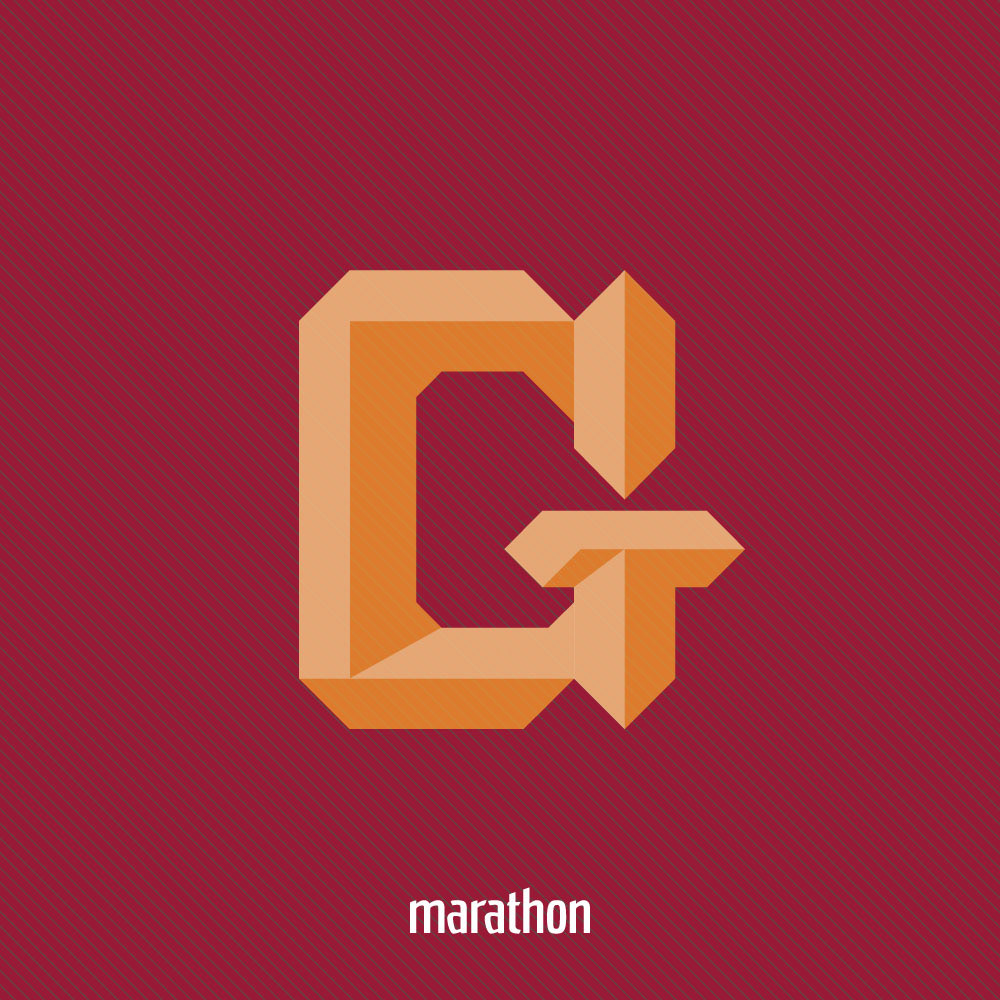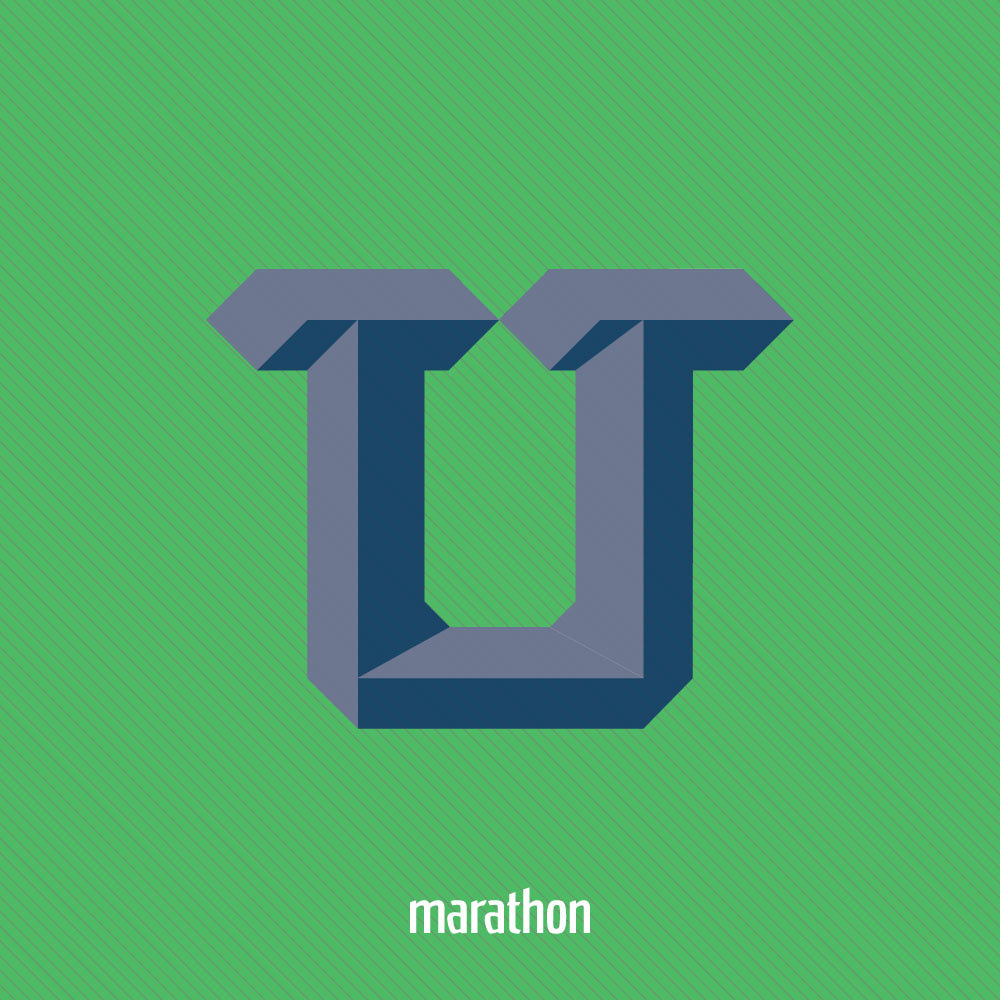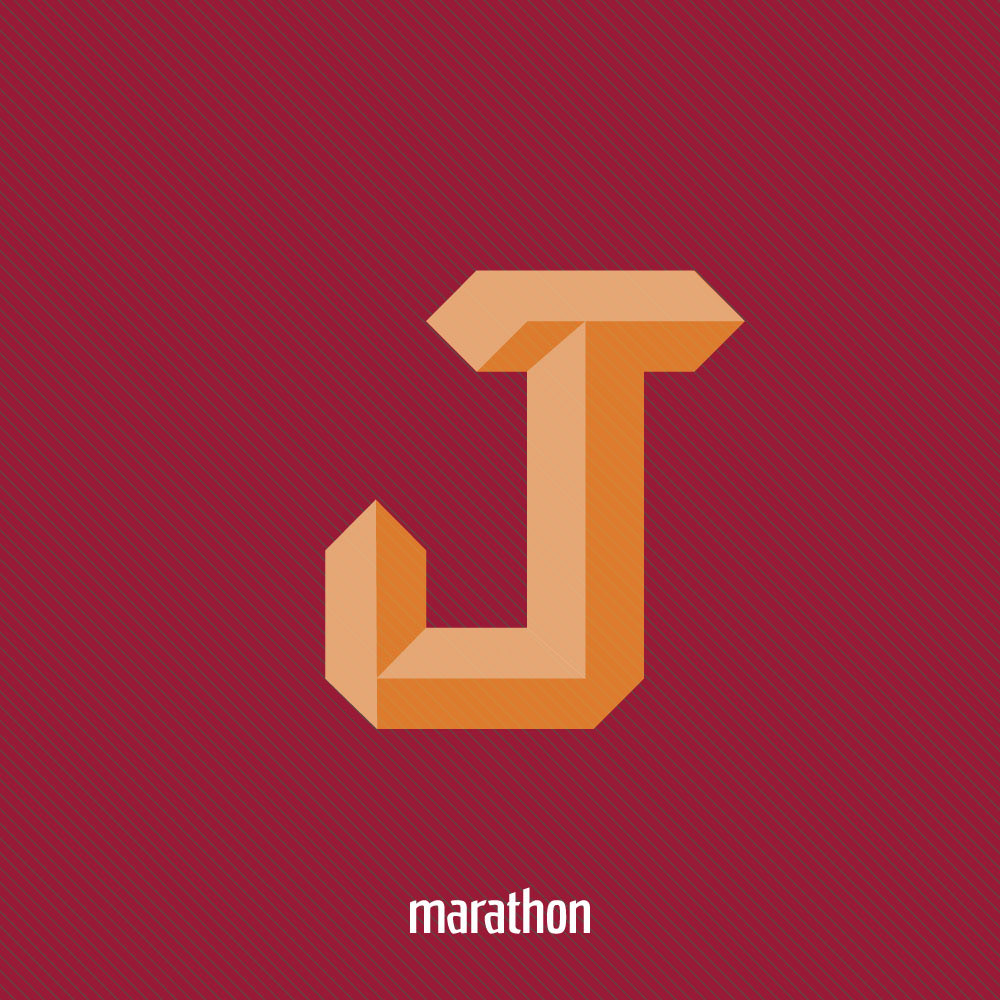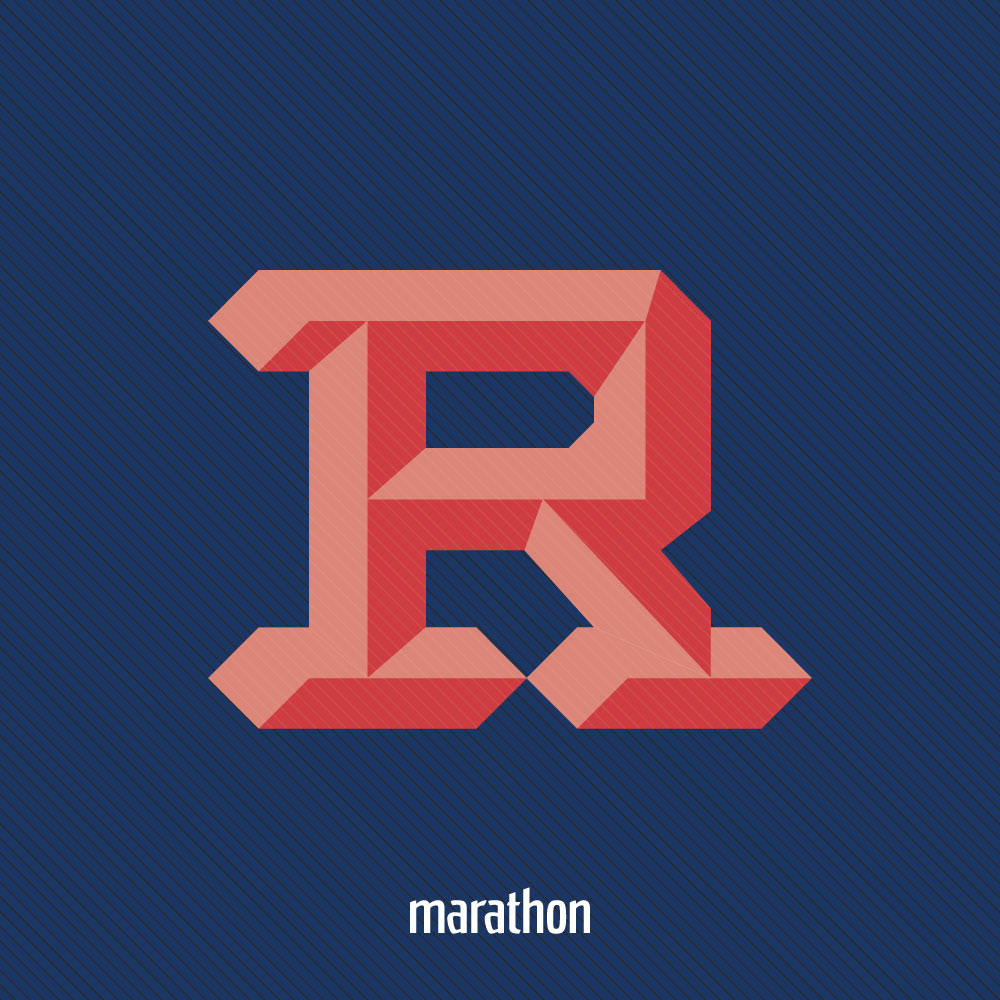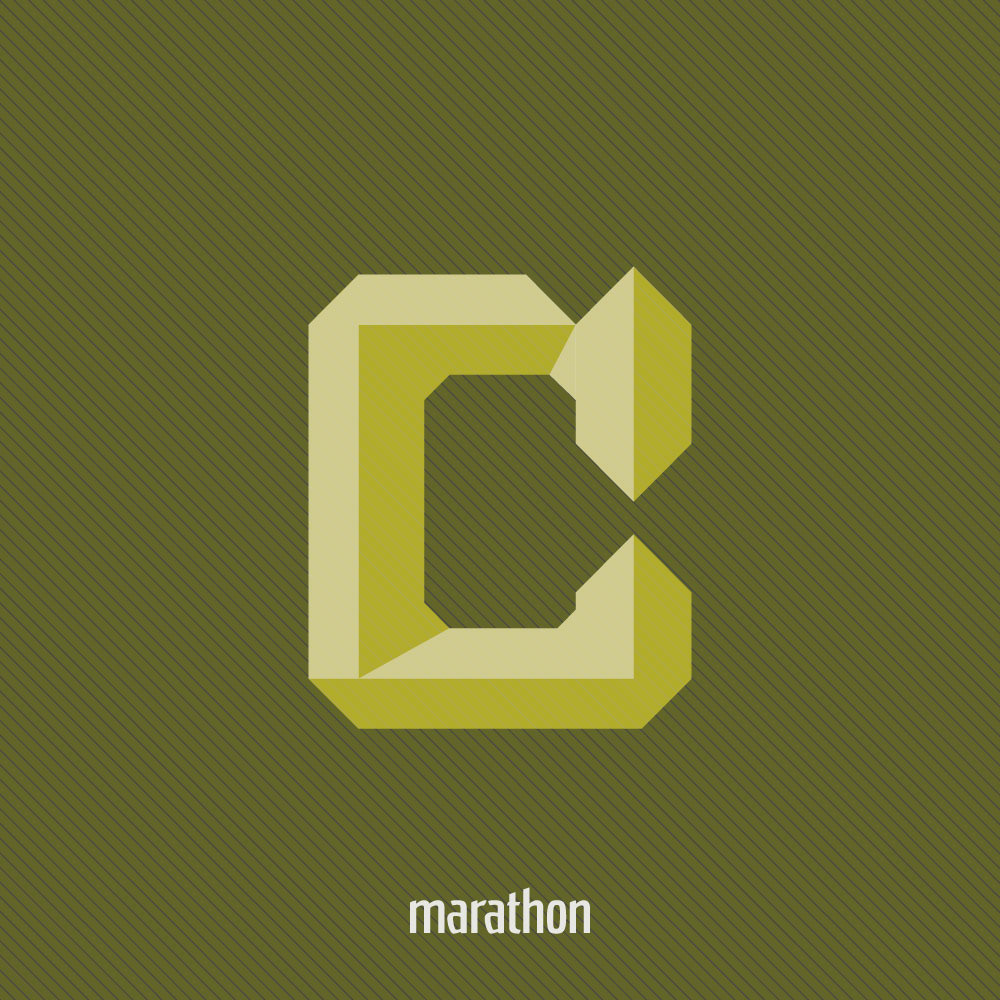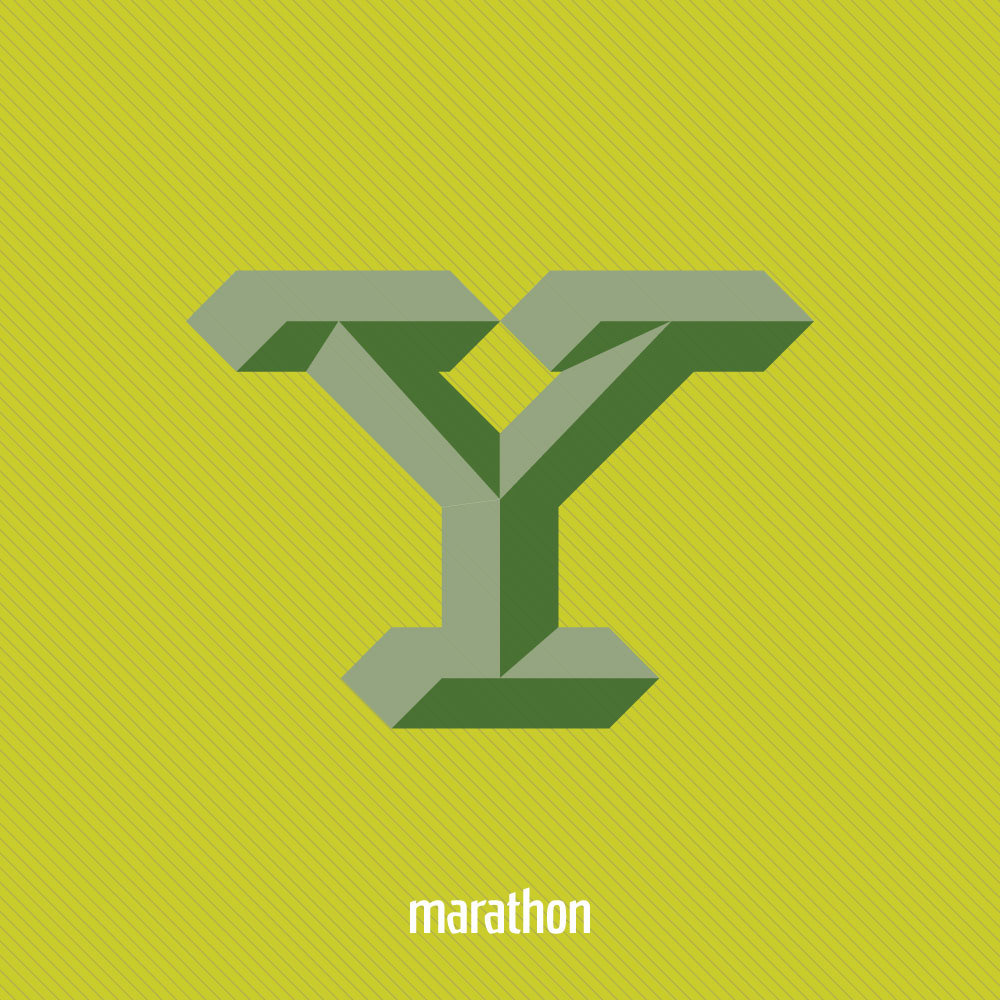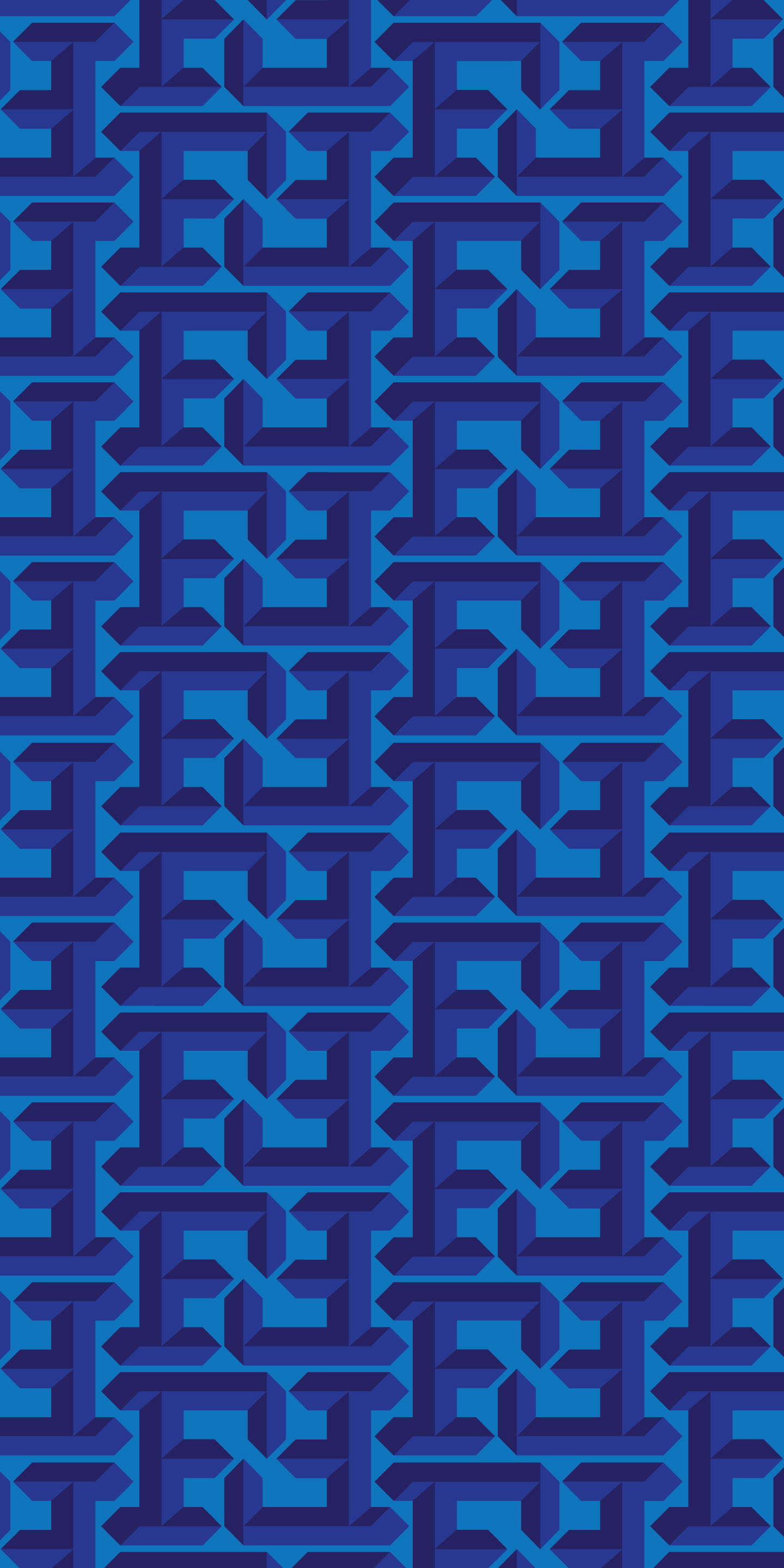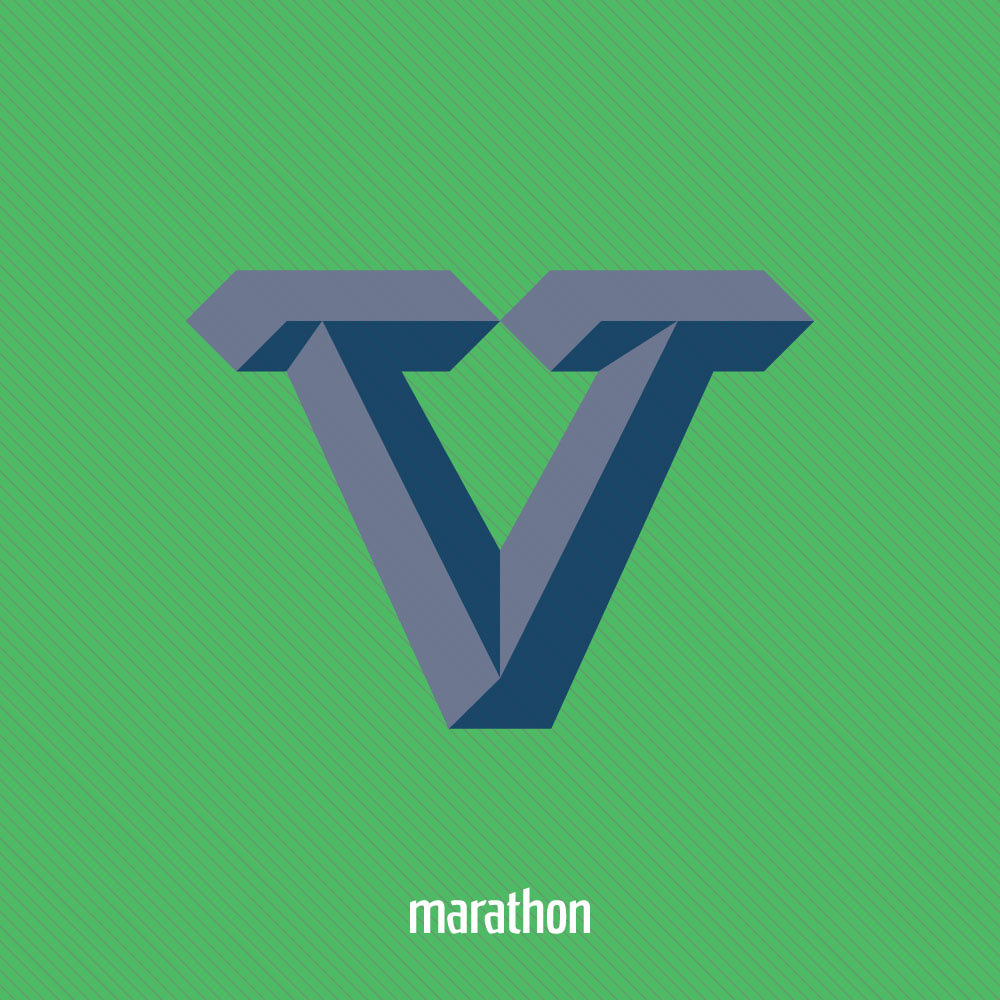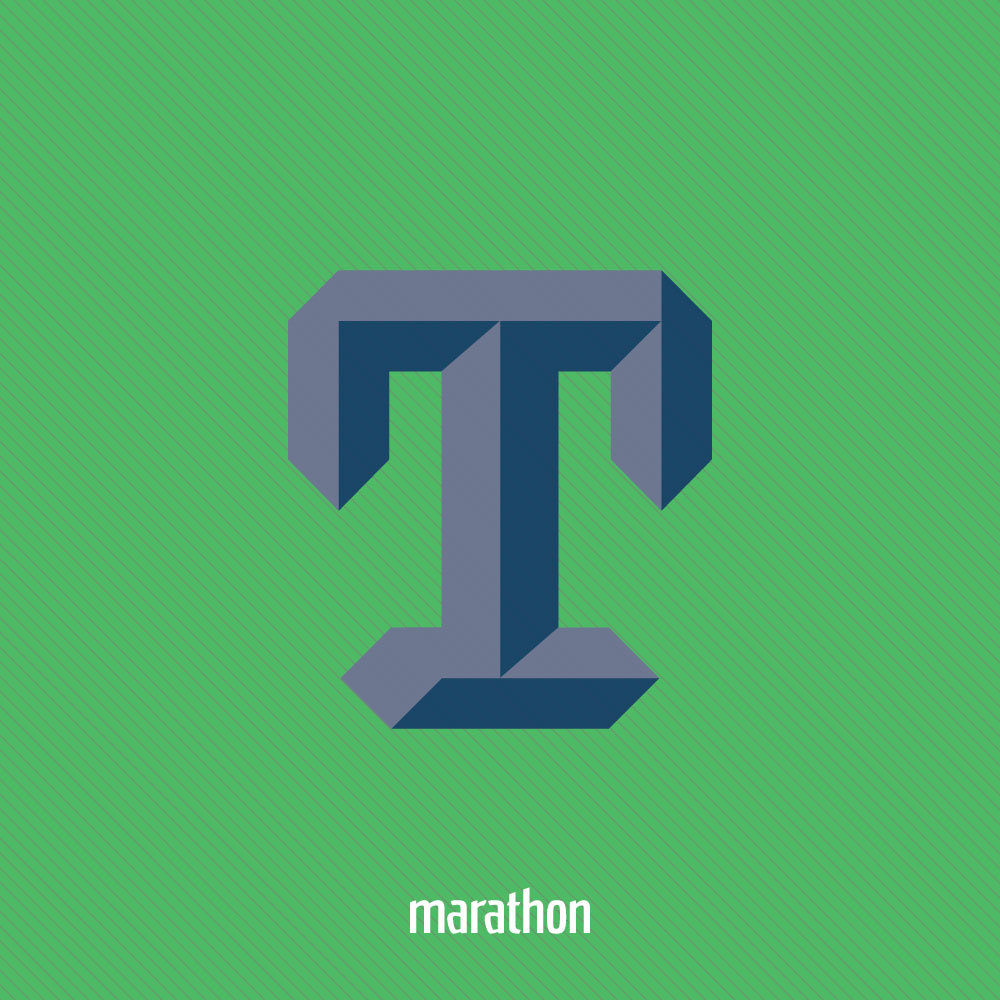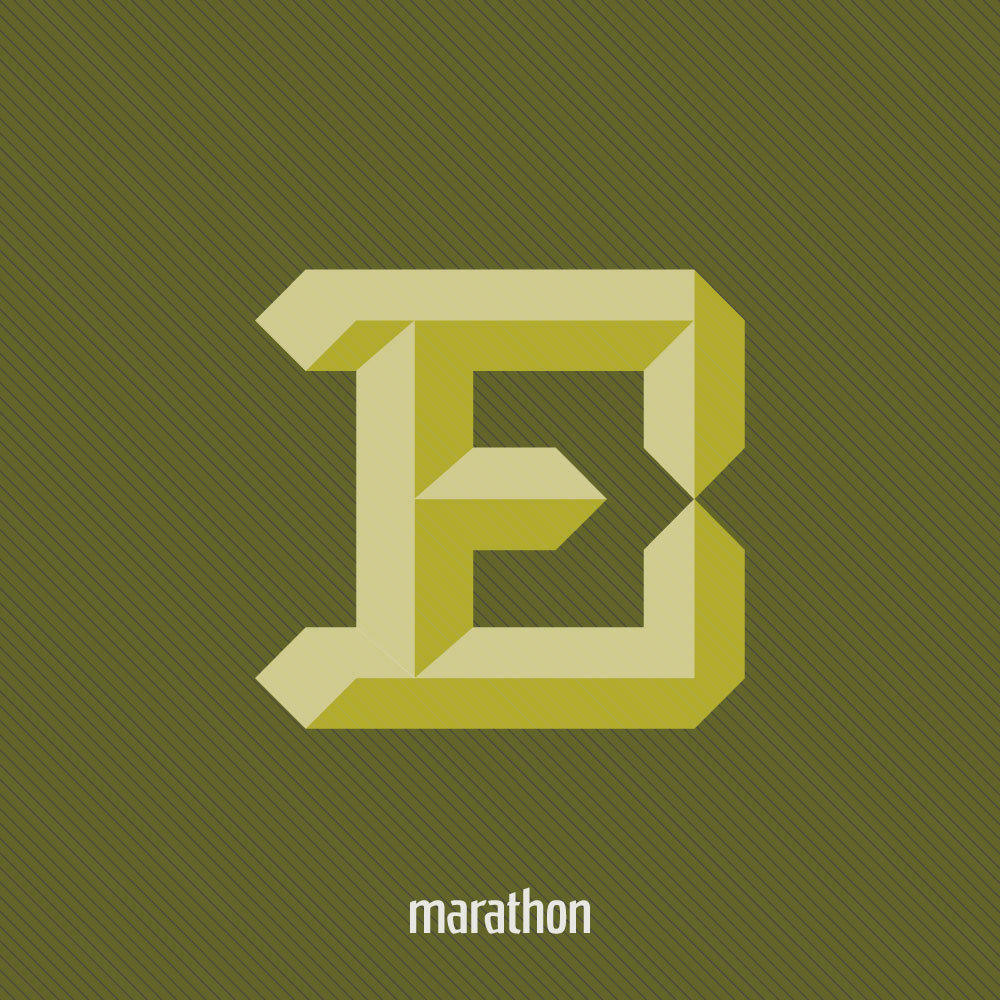
Marathon Fonts is a side project of mine to create my own typography. The designs below belong to a set of fonts called Tanner. I saw a really interesting piece of type design in a book about Ulysses S. Grant and wanted to know if it was available digitally and after asking around on Twitter, the consensus seemed to be "Maybe not" and I was encouraged to go for it.
My goal for Tanner is to hammer out some of the original's inconsistencies and create a four layered font family that will include a Solid, a Shaded, an Outline, and a Shadow layer with some cool ligatures and accents for people to use and to bring back (at least in spirit) a design created somewhere in the first half of the 19th century. Eventually, I would attempt to make a version that was truer to the source, but I think I need more research before I can tackle that.
The ad I saw for Grant's first run for president. My apologies if you are a fan of Grant's second VP, Henry Wilson, or huge General Buckner fan, as this may be difficult to look at. But the idea of turning a pretty nasty seeming job (Grant hated being a tanner and hated the idea of following in his father's footsteps to be one) into a pretty good burn on the Confederacy is pretty cool.